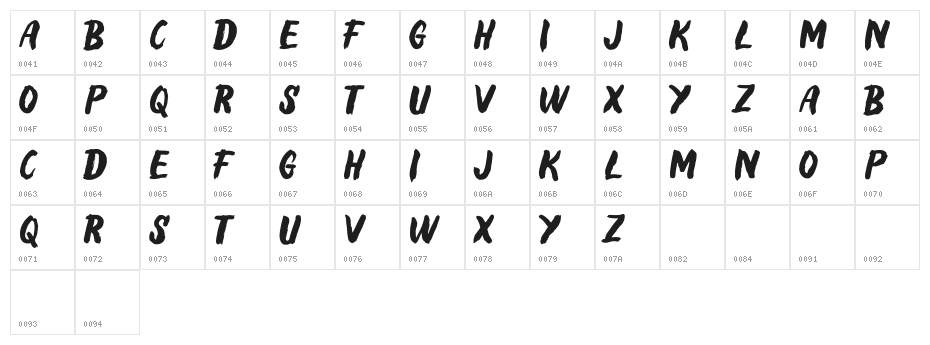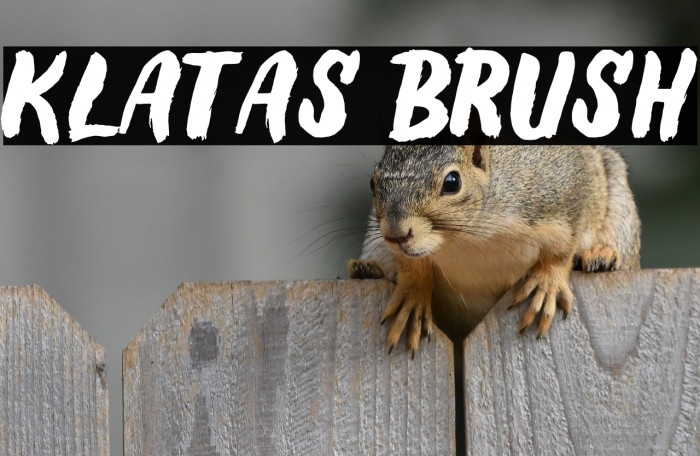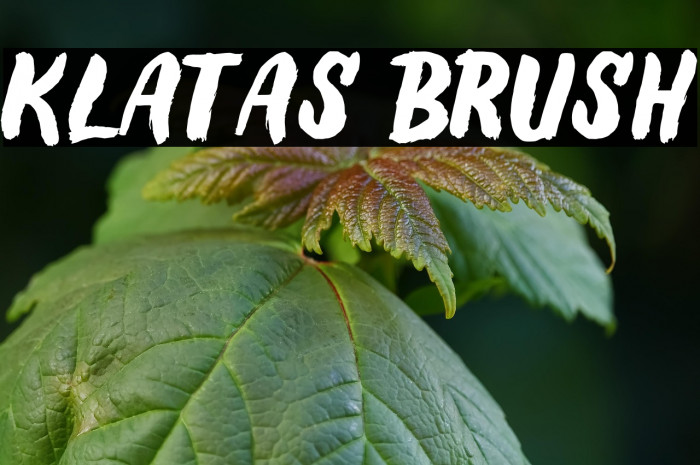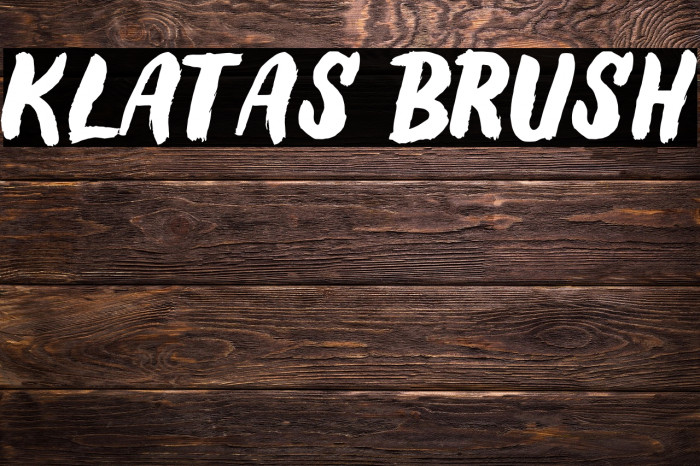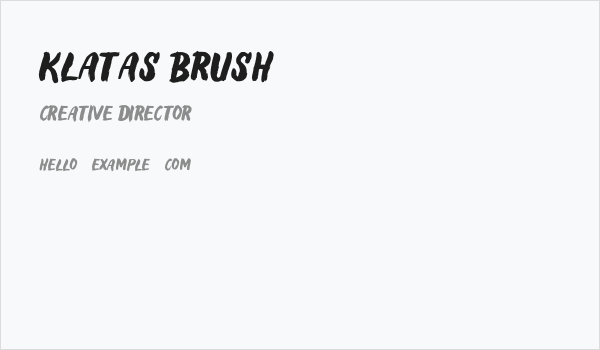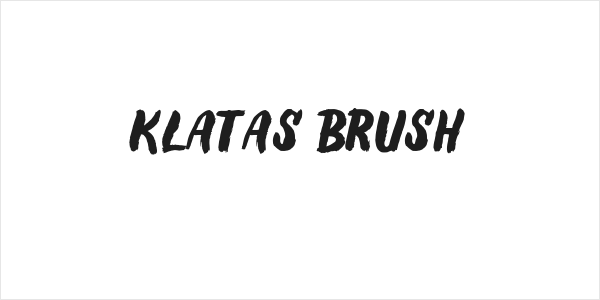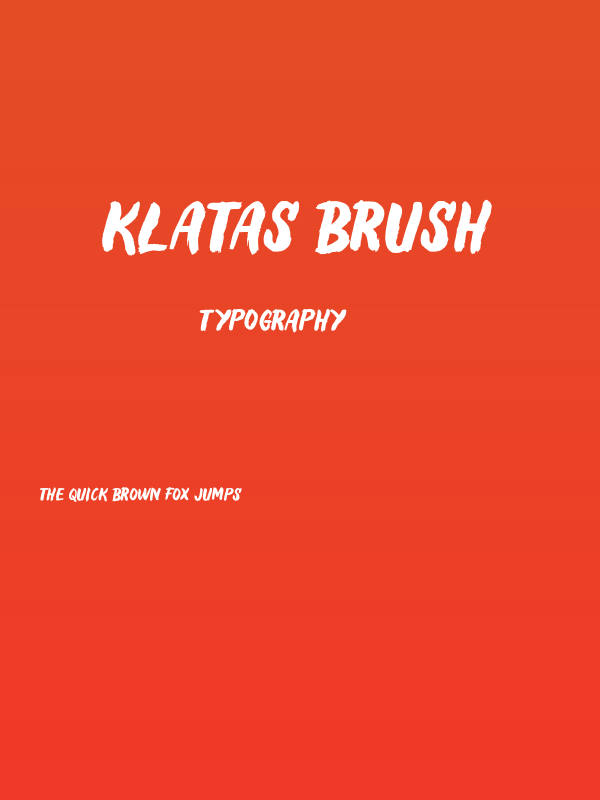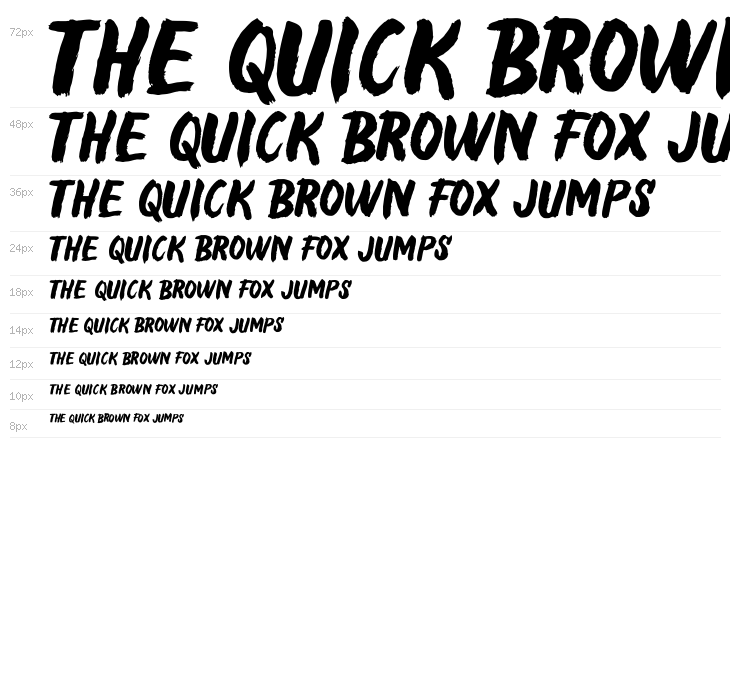
Klatas Brush Font
Klatas Brush Description
This font exudes a bold and dynamic brush script style, characterized by its thick, energetic strokes and slightly irregular edges that mimic the natural flow of hand-painted lettering. The uppercase letters are robust and commanding, making a strong visual impact. Each character is crafted with a sense of movement and fluidity, giving it a lively and expressive appearance. The font's design is both artistic and versatile, suitable for creating eye-catching headlines and designs that require a personal touch. Its unique style captures the essence of hand-drawn typography, making it ideal for projects that aim to convey creativity and individuality.
| Proposed Projects | Ideal for branding, posters, invitations, and any design that benefits from a personal, artistic touch. |